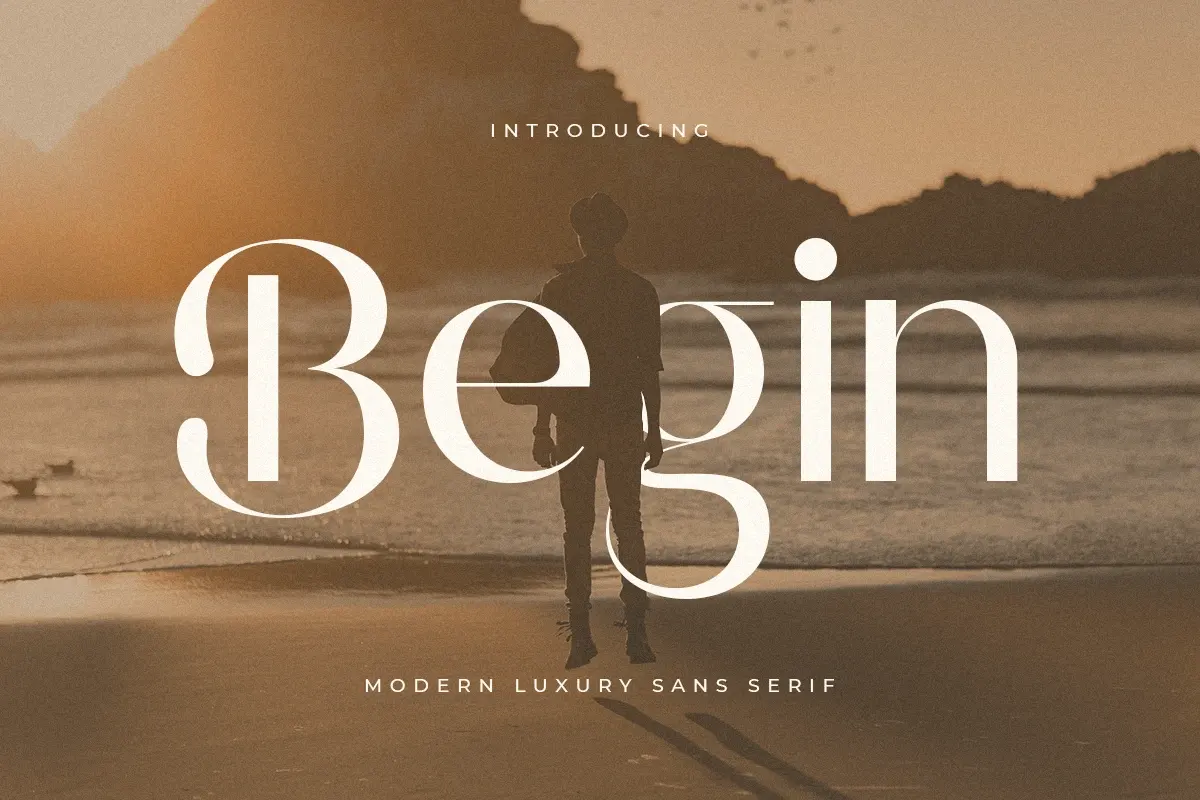
Begin - Modern Luxury Sans Serif Font Free Download is a sleek and sophisticated typeface designed for high-end branding and minimal design aesthetics. With its clean lines, refined proportions, and stylish simplicity, this font is ideal for fashion labels, editorial layouts, product packaging, websites, and upscale marketing materials.
Begin delivers modern elegance with every letter, making your typography feel polished, confident, and timeless. It works beautifully in both headlines and body text, offering versatility for a wide range of creative applications.